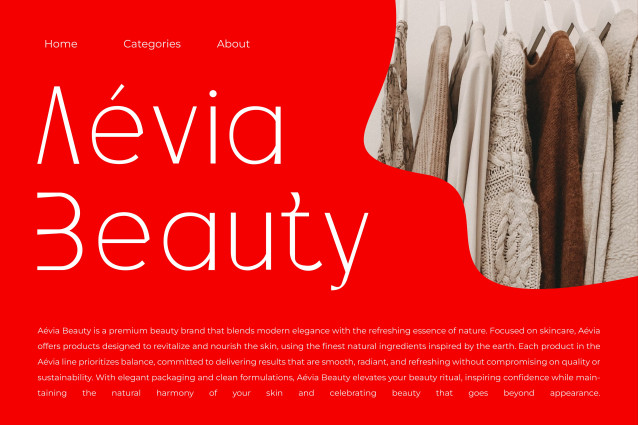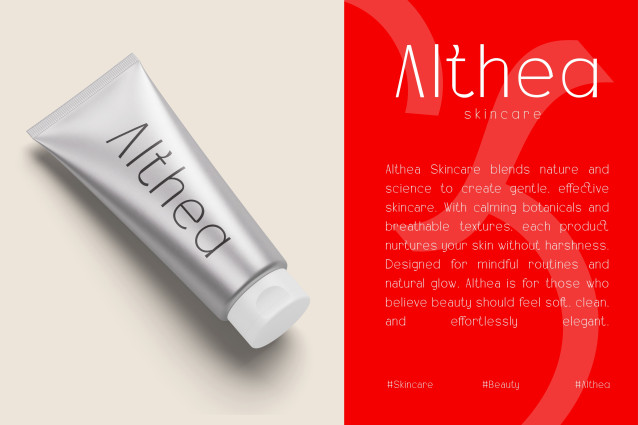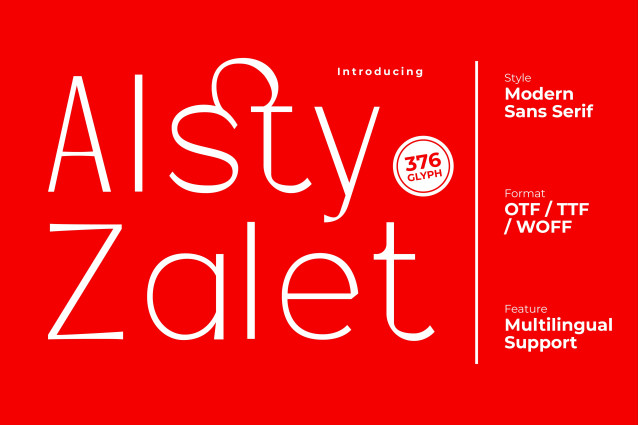
Alsty Zalet Font
Alsty Zalet Font is a clean and contemporary sans serif typeface with a soft geometric touch. Designed for clarity and elegance. it offers a modern aesthetic with subtle personality perfect for branding. editorial layouts. and minimalist design systems.
Featuring balanced proportions. smooth terminals, and a curated set of stylistic alternates and ligatures. Alsty Zalet gives designers the flexibility to create fresh. polished. and professional visuals. Its minimalist tone makes it ideal for fashion brands. portfolios. packaging, and digital interfaces.